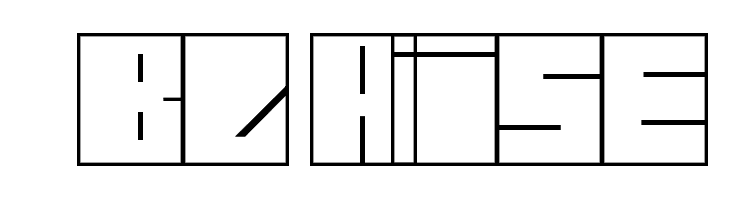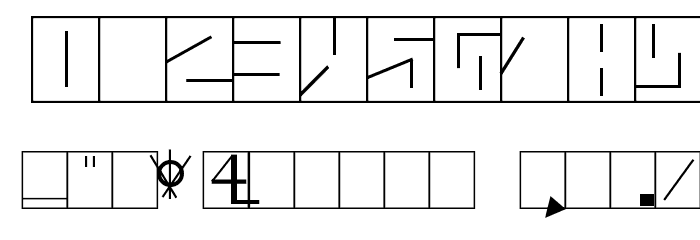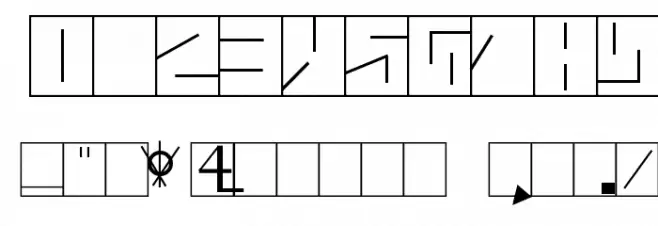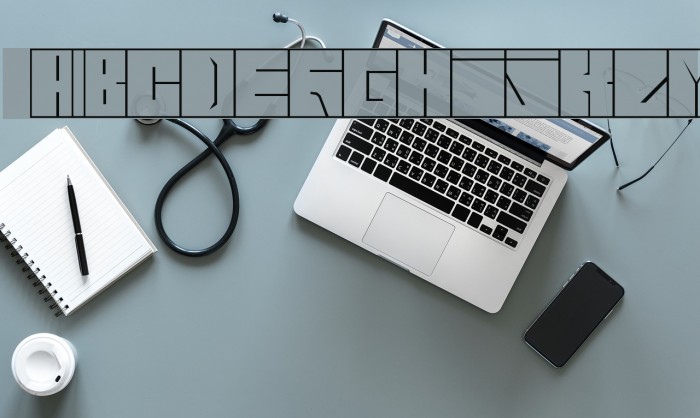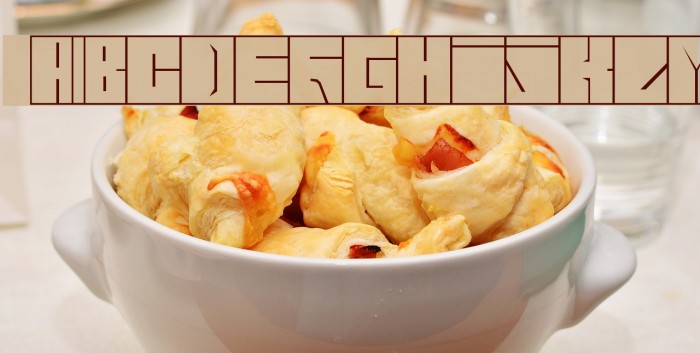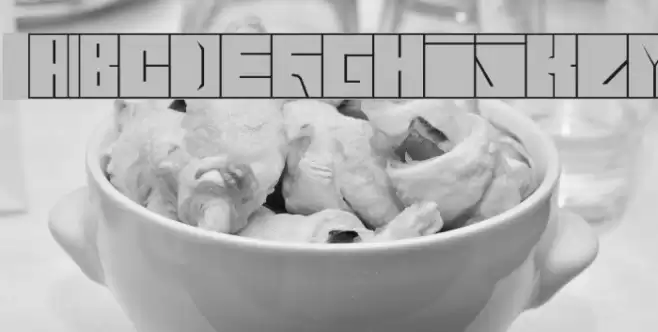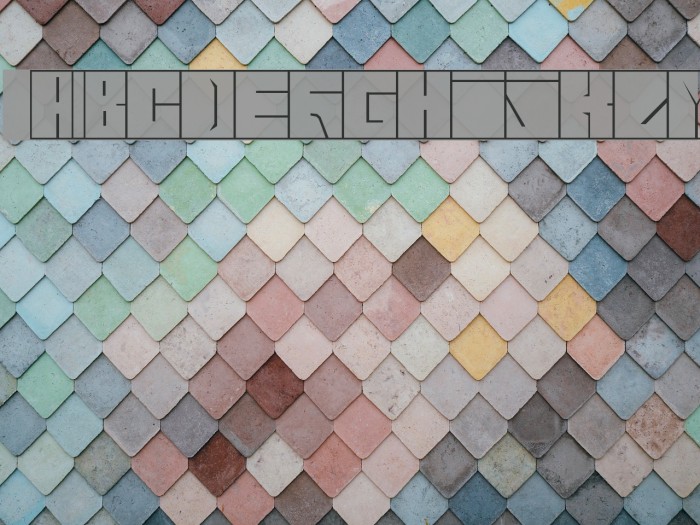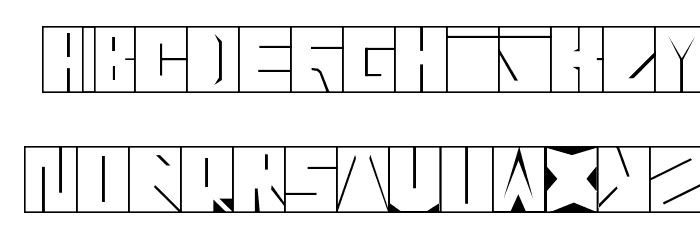
Blaise Font
Blaise Description
This font features a highly geometric and abstract design, characterized by its bold, angular shapes and sharp edges. Each letter is constructed with a series of straight lines and sharp angles, creating a futuristic and mechanical appearance. The font lacks curves, giving it a rigid and structured feel. The uppercase and lowercase letters share a similar design approach, maintaining consistency across the alphabet. Numbers and special characters follow the same geometric style, ensuring uniformity. This font's unique and striking design makes it stand out, ideal for projects that require a modern and edgy look.
| Overall Style | Futuristic |
| Proposed Projects | Ideal for sci-fi themed designs, modern branding, tech-related projects, and digital art. |